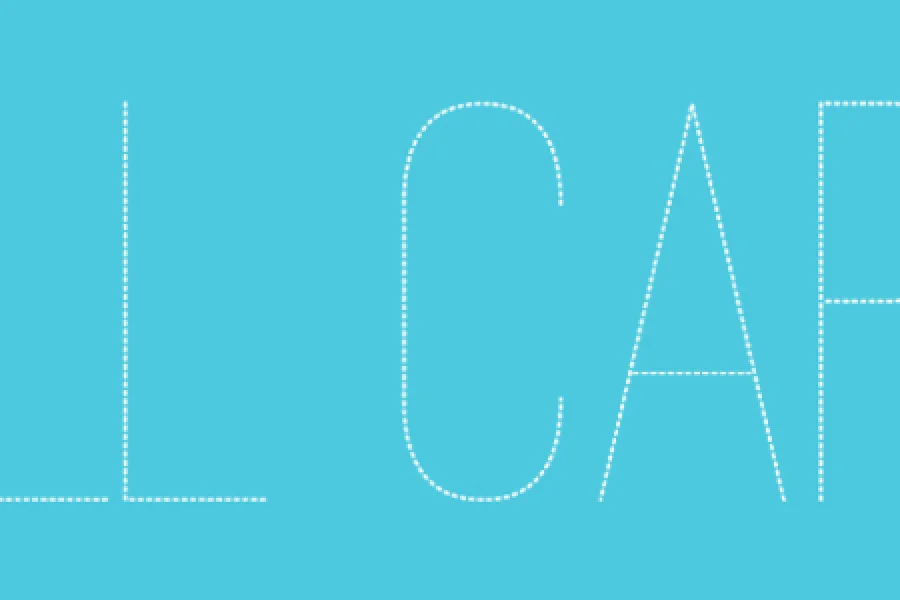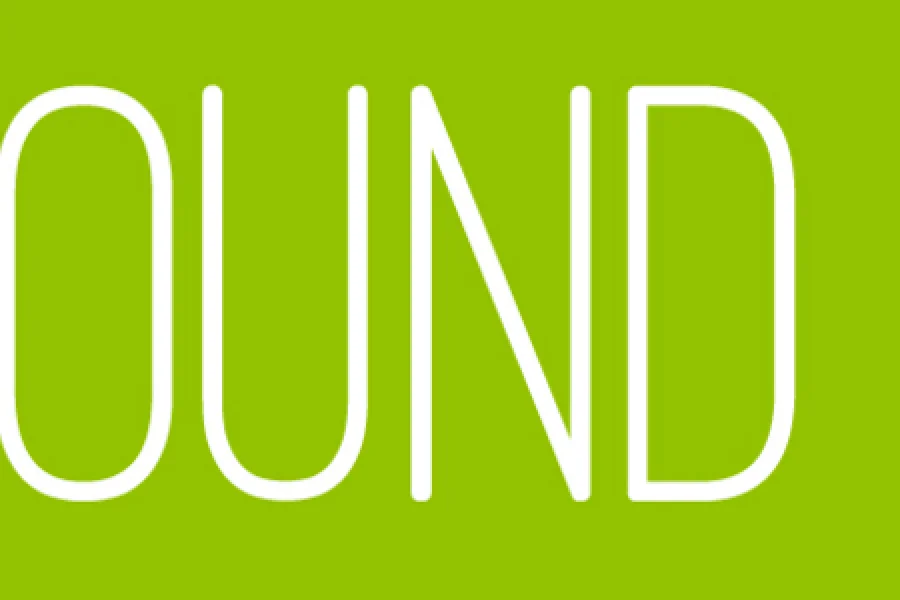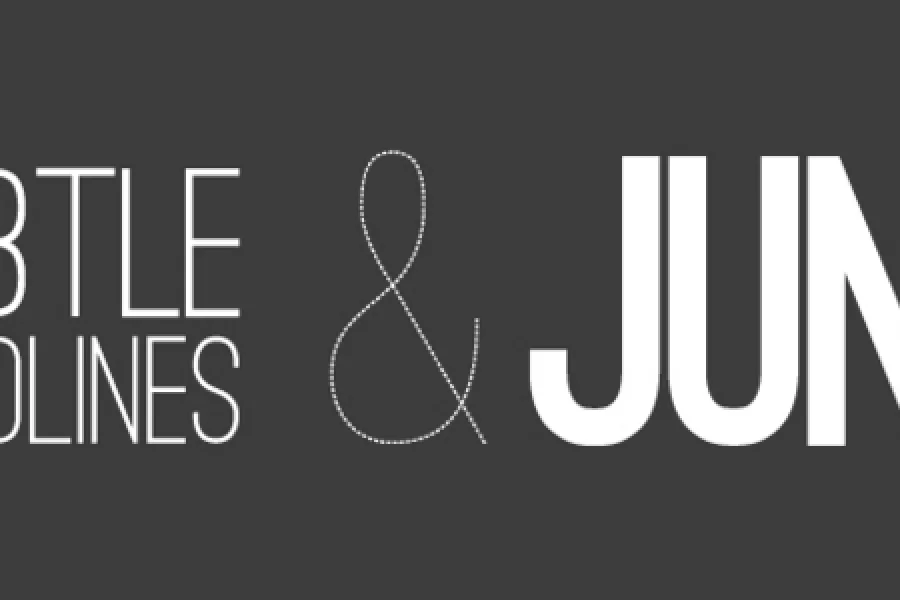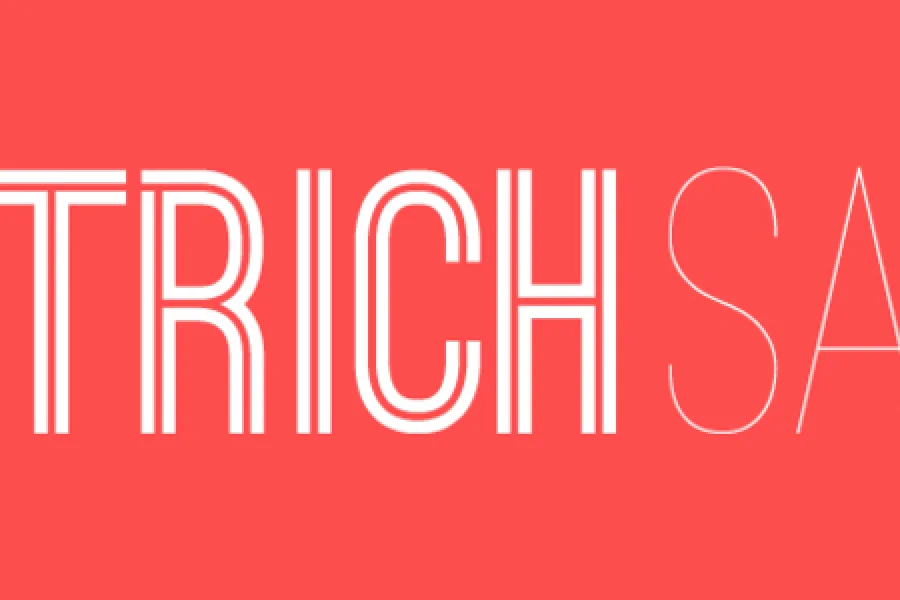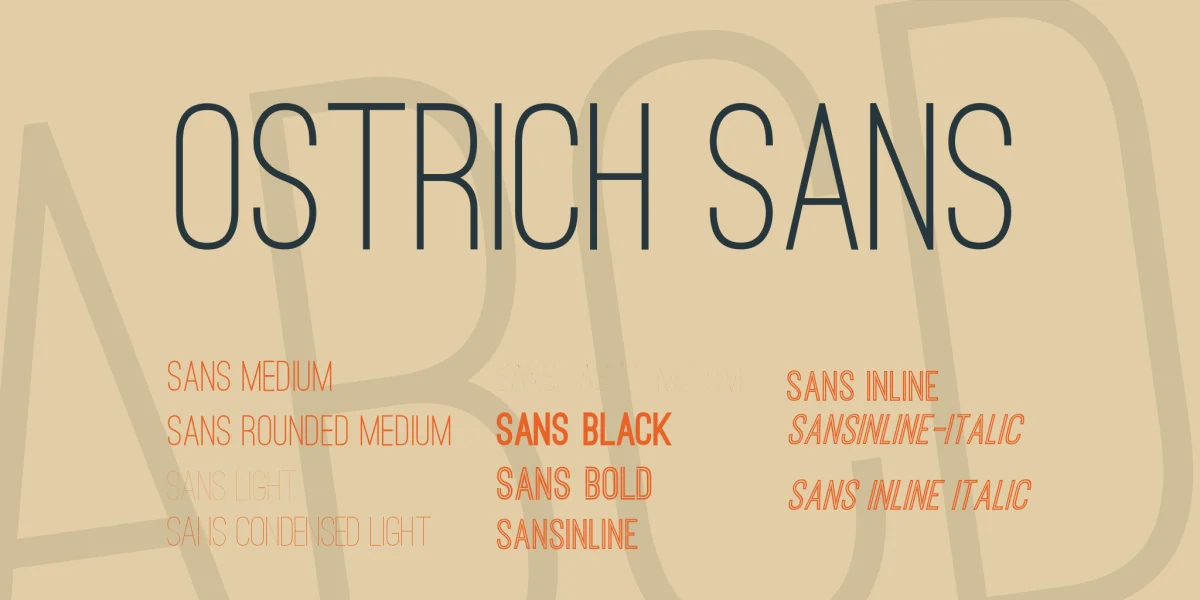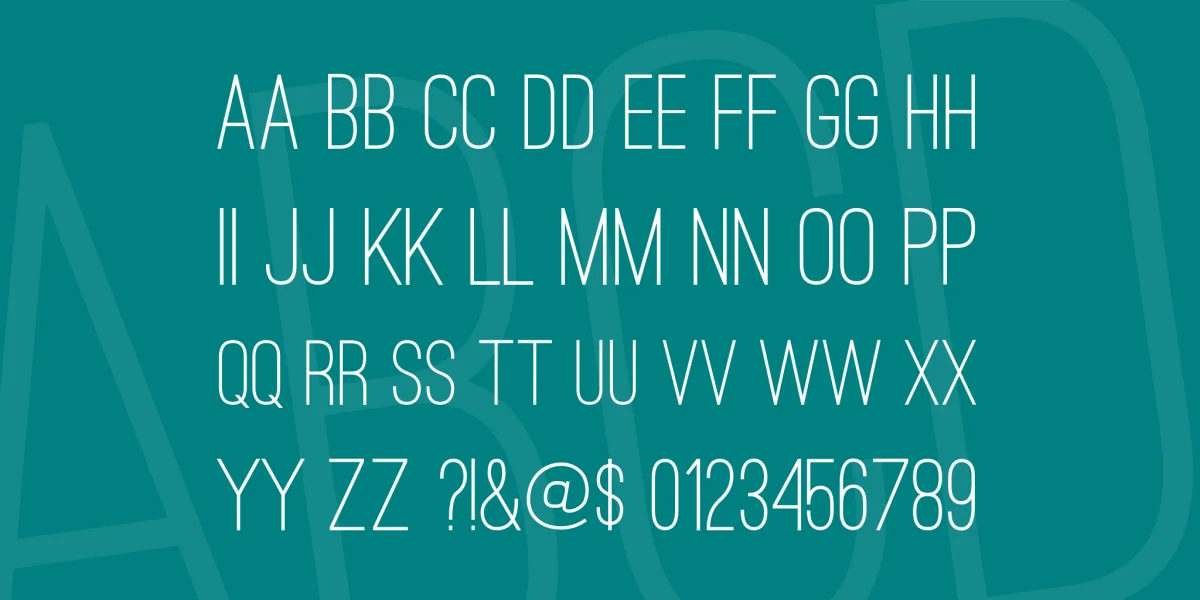
A gorgeous modern sans-serif with a very long neck. With a whole slew of styles & weights:
Dashed (thin)
Rounded (medium)
Ultra light
Normal
Bold (race track style double lines)
Black
Ostrich Sans Inline is the most recent to the family and has basic international character support and an italic style.